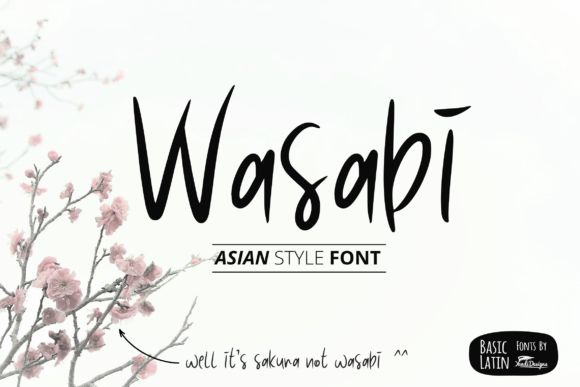
Introducing Wasabi Font – A Culinary Dance of Strokes, Elevate Your Designs with a Touch of Playful Elegance
Journey into the world of artistry with Wasabi Font. A script typeface that is as rich in charm as its namesake, Wasabi is bound to revolutionize the way you express your creativity. Crafted with a spontaneous flair by the exceptional YandiDesigns, this font is a symphony of free-flowing lines and graceful curves that will transform your designs into masterpieces. Embrace the captivating fusion of simplicity and modernity that Wasabi brings, and watch your projects radiate with an aura of elegance.
Like a culinary delight bursting with flavor, Wasabi Font's playful personality will ignite your imagination. Its versatility extends across a wide spectrum of design projects, from captivating logos and book covers to eye-catching t-shirt designs and beyond. Let your artistic vision run wild as you explore the endless possibilities that Wasabi offers. Elevate your projects beyond the ordinary and make a lasting impression.
With Wasabi Font, the ordinary becomes extraordinary. Its effortless charm adds a touch of sophistication to your digital creations, leaving a lasting impression on your audience. A font that exudes playfulness and artistic charm, Wasabi is the perfect choice for those seeking to infuse their designs with a touch of uniqueness. Say goodbye to bland and uninspiring fonts and embrace the world of Wasabi, where creativity knows no bounds.